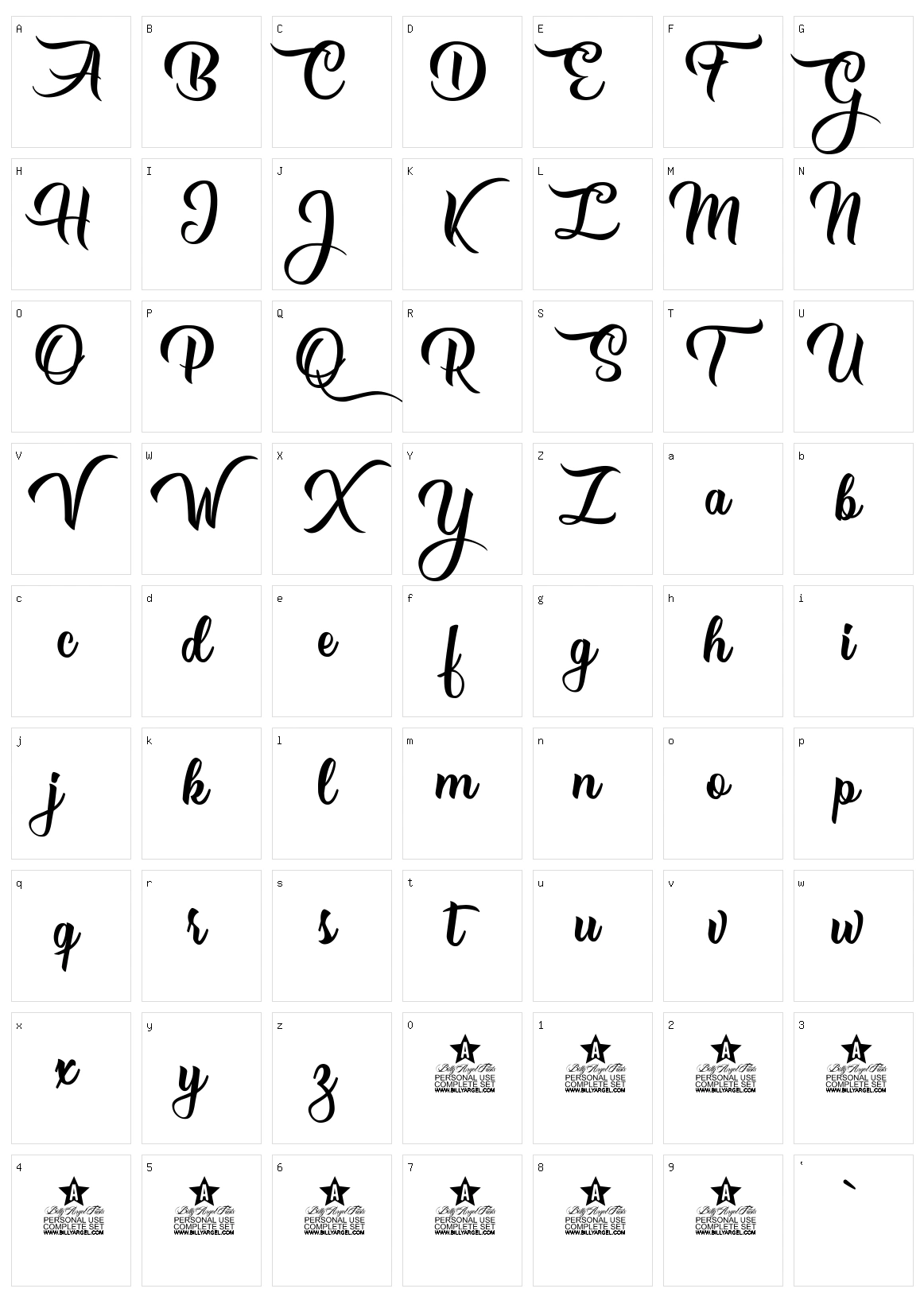
The free font Girls got Rhythm is carefully designed by Billy Argel Fonts ?, showcasing a thoughtful balance of creativity and usability and falls under the Script font style. When you download the ZIP file, it contains only 178.19 KB of font files, making it lightweight and quick to download. Please review the license details below to understand permitted usage and distribution rights. If license information is not available, we recommend using this font for personal projects only or contacting the author directly for commercial usage permissions.